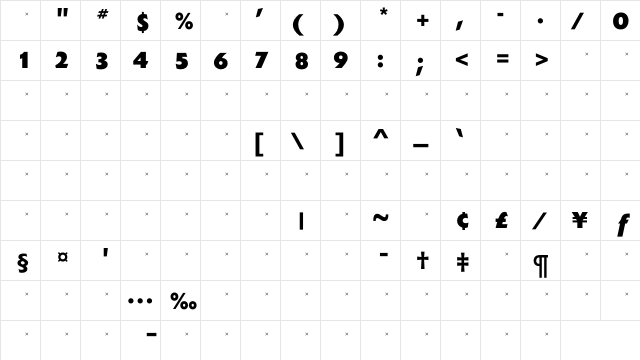
ExtensionExtraBoldTab Regular
Design Context for ExtensionExtraBoldTab Typeface
ExtensionExtraBoldTab takes a measured approach to typography — its balanced proportions and neutral character make it a reliable workhorse for both digital and print work. Its bold stroke weight gives it real presence on the page.